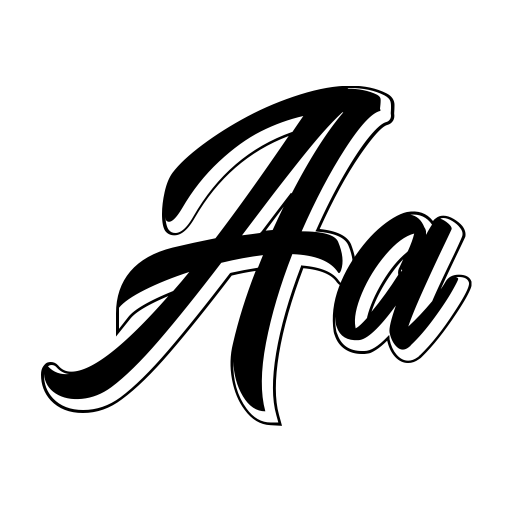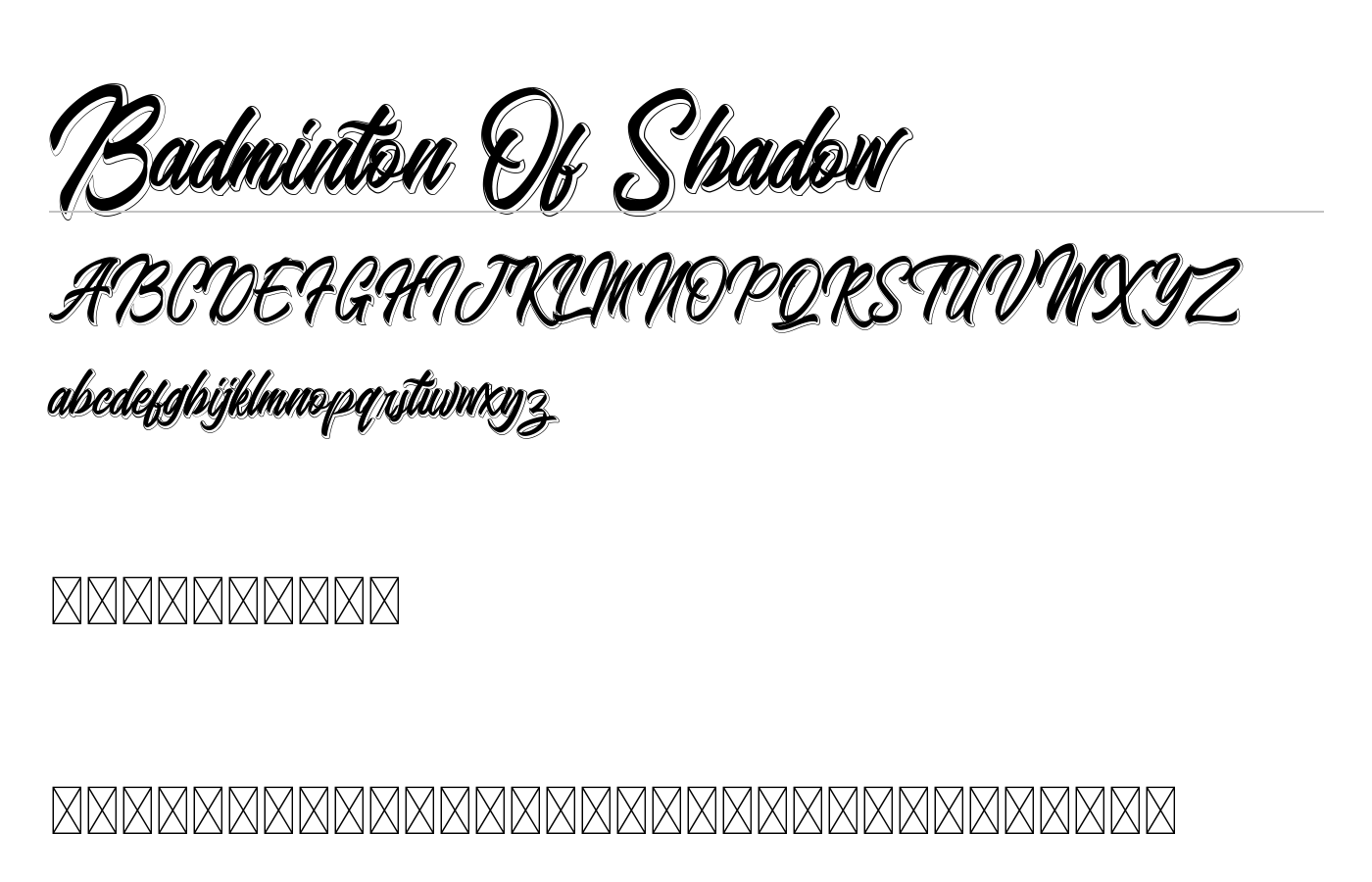
Badminton Of Shadow is a bold, script-style font with a striking shadow effect that adds depth and movement to its flowing, cursive letterforms. This font combines a playful yet elegant vibe, making it ideal for eye-catching headlines, logos, and creative branding where personality and flair are key. Its dynamic, hand-drawn feel works especially well in fashion, packaging, and artistic editorial designs.
Badminton Of Shadow Font
About Badminton Of Shadow Font